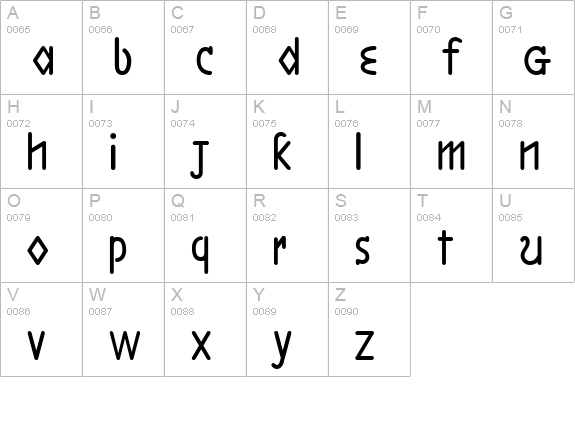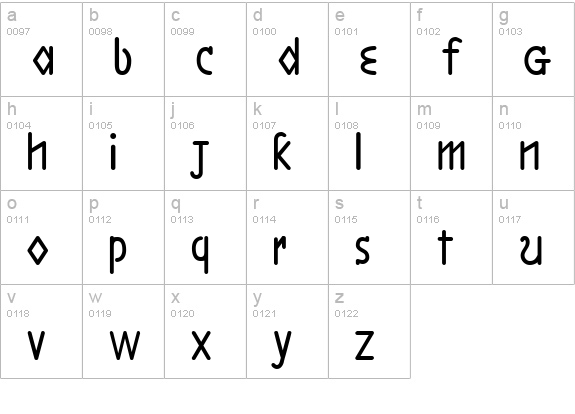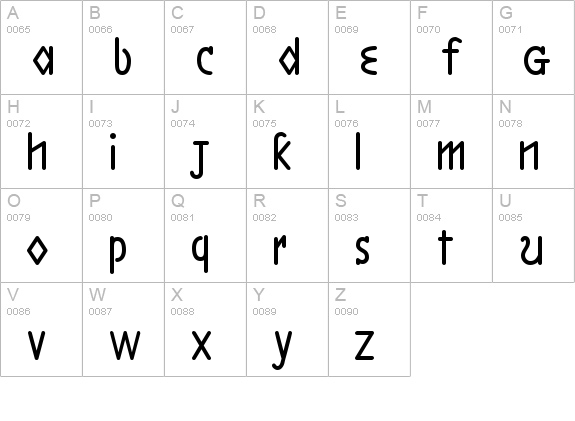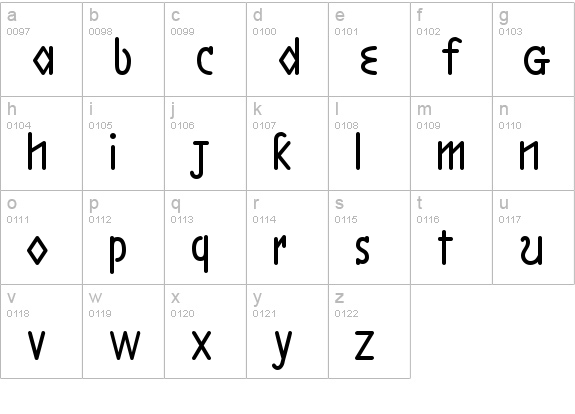
Boston LineAligned font is a sleek and modern typeface that is perfect for a wide range of design projects. With its clean lines and geometric shapes, this font exudes a sense of sophistication and professionalism. Whether you're creating a logo, website design, or marketing materials, Boston LineAligned font will add a touch of elegance to your work. The best part is that Boston LineAligned font is available for free download at FontsMarket.com. This means you can easily access this stylish font and use it in your projects without any cost. Don't miss out on the opportunity to enhance your designs with the timeless appeal of Boston LineAligned font. Download it today and elevate your creative endeavors to new heights.